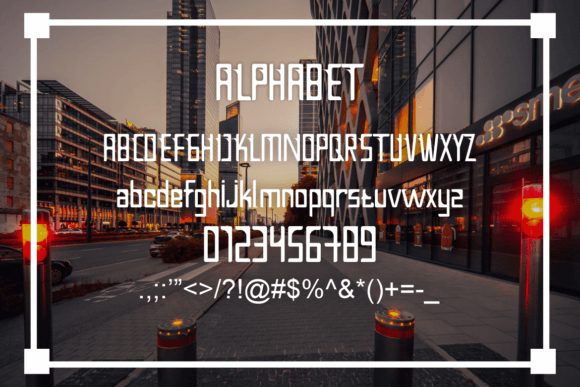
Introduction to Radho Boar Font
As a designer, there’s nothing quite like the thrill of bringing a creative project to life. The rush of excitement when the perfect font comes together with your concept, and the entire design starts to take shape. For those moments, you need a font that’s not only bold but also authentic – a font that speaks to your audience and leaves a lasting impression. Enter the Radho Boar Font, a sans-serif powerhouse that’s about to become your go-to design resource.
Whether you’re working on a logo, t-shirt printing, or an esports branding project, the Radho Boar Font is sure to shine. Its high-quality design makes it a valuable addition to any designer’s toolkit, and with its transparent background, it’s perfect for a wide range of creative applications.
Key Features of Radho Boar Font
- High-quality font with a unique design, ideal for creative projects requiring a distinctive touch.
- Comes in a transparent background format, allowing for seamless integration with various design elements.
- Designed at a high resolution of 300 DPI, ensuring crisp and clear display on high-resolution screens.
- Unique characteristics include bold lines, geometric shapes, and a playful aesthetic, making it perfect for adding a creative twist to any design project.
Honest Review: Radho Boar Font
I recently had the chance to work with the Radho Boar Font for a creative project, and I must say it’s a great addition to any designer’s toolkit. ✨ One of the things I appreciate about this font is its sleek and modern design, making it perfect for a variety of high-quality design projects.
- Sleek and modern design ✨
⚠️ One of the limitations I’ve found with the Radho Boar Font is that it may not be suitable for projects that require a more traditional or classic look. Additionally, the font’s characters may not be as extensive as some other fonts on the market.
Overall, I’m really impressed with the Radho Boar Font and would definitely recommend it as a design resource for anyone looking for a modern and stylish font.
Tips for Getting the Most Out of Radho Boar Font
Use the Radho Boar Font in combination with a transparent background to create a high-quality design. This font is perfect for creative projects that require a unique and eye-catching design resource.
The Radho Boar Font is ideal for use in business cards, brochures, and other marketing materials. It’s also great for use in digital design projects, such as social media graphics and website design.